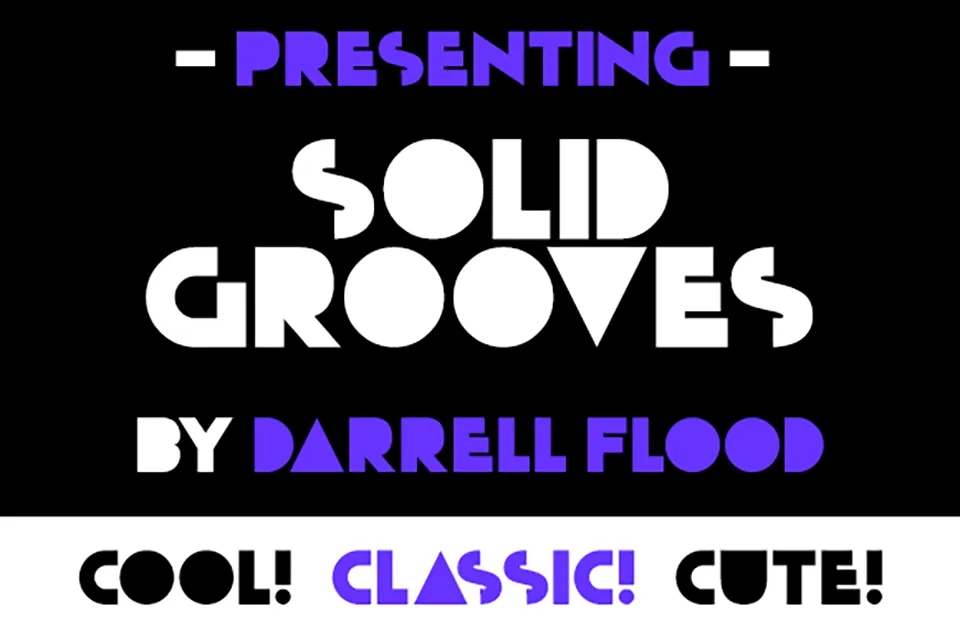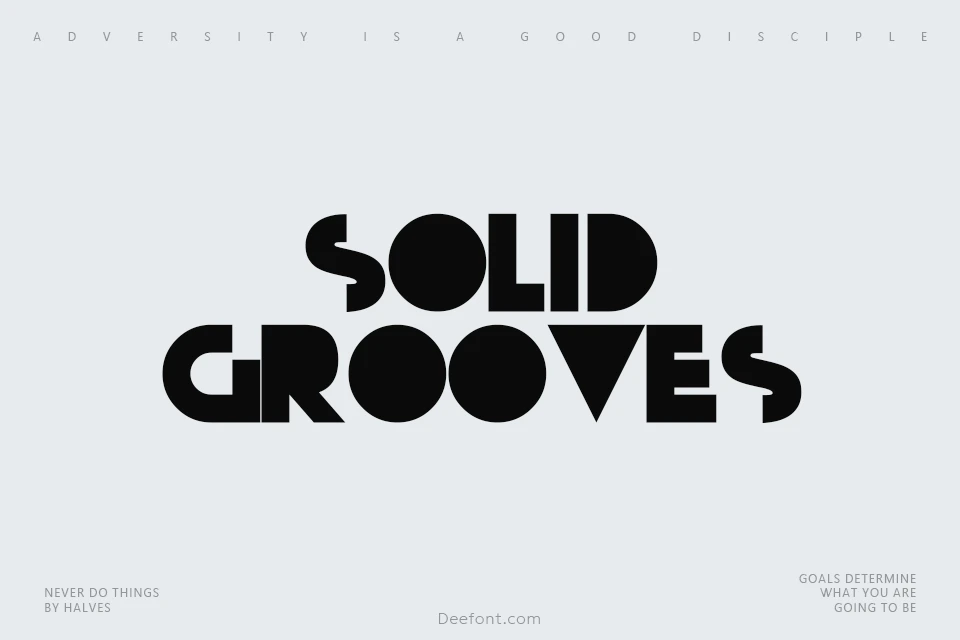
Solid Grooves Font
Solid Grooves Font is a modern, decorative display font created by Darrell Flood. It features bold, geometric shapes with a futuristic aesthetic, using solid, block-like forms that emphasize sharp lines. This font is ideal for adding a modern and dynamic touch to designs. It is free for personal use and has been updated to fix kerning issues, ensuring equal spacing between characters. Its bold style makes it suitable for logos, headings, and any project requiring a striking visual impact. The font’s modernity and geometric design elements give it a unique appeal in contemporary design contexts.